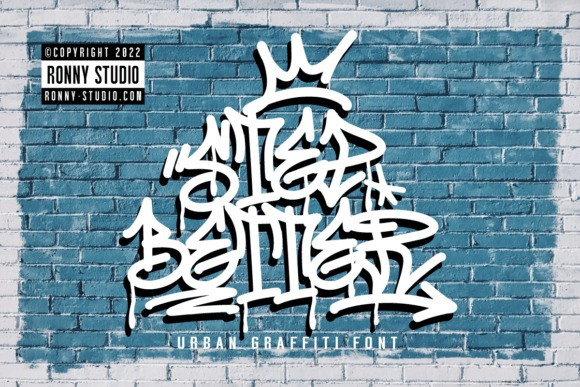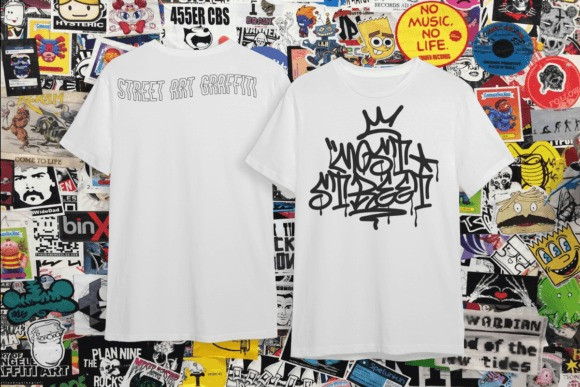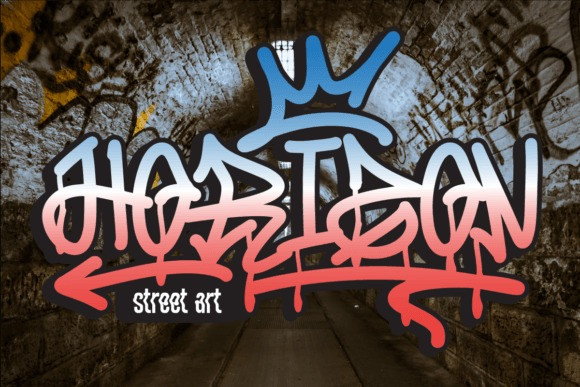
Step Better Font
Step Better is a fun display font, inspired by street graffiti markings. With a cool and hip vibe, this font is perfect if you want a realistic street art or hip-hop style for your designs, posters, props, etc.